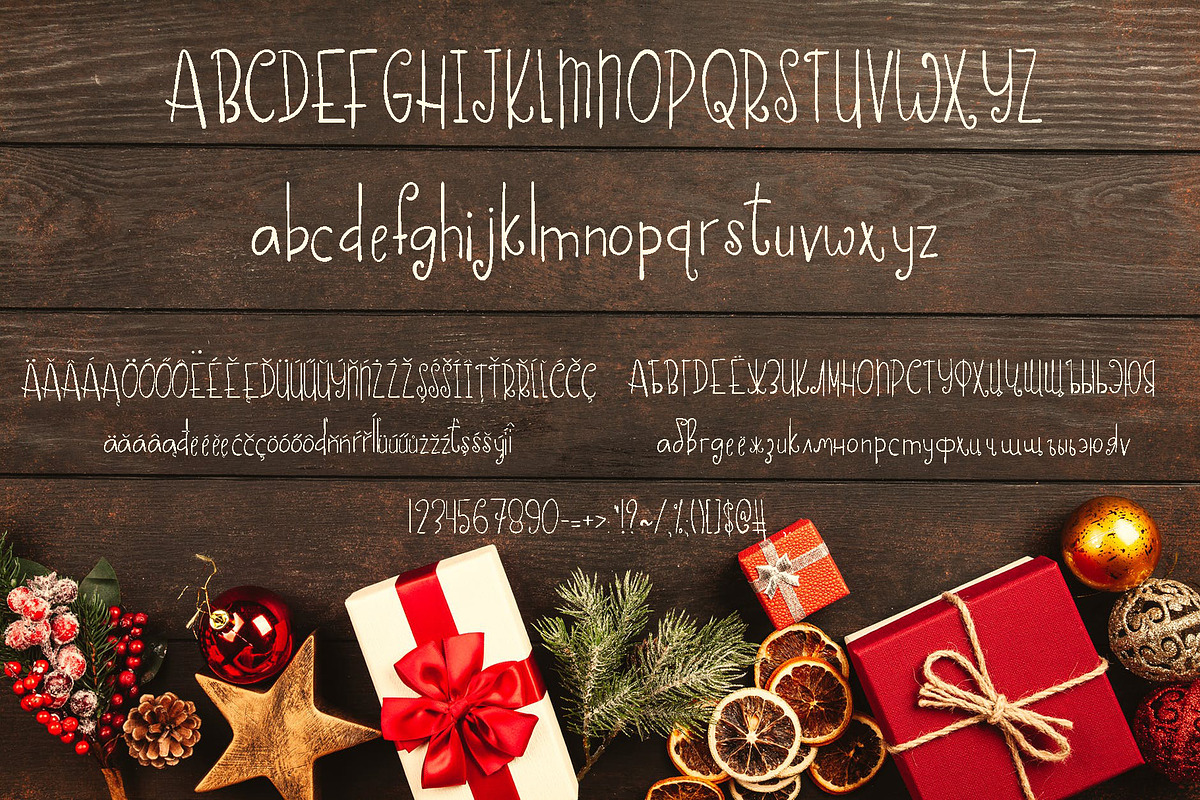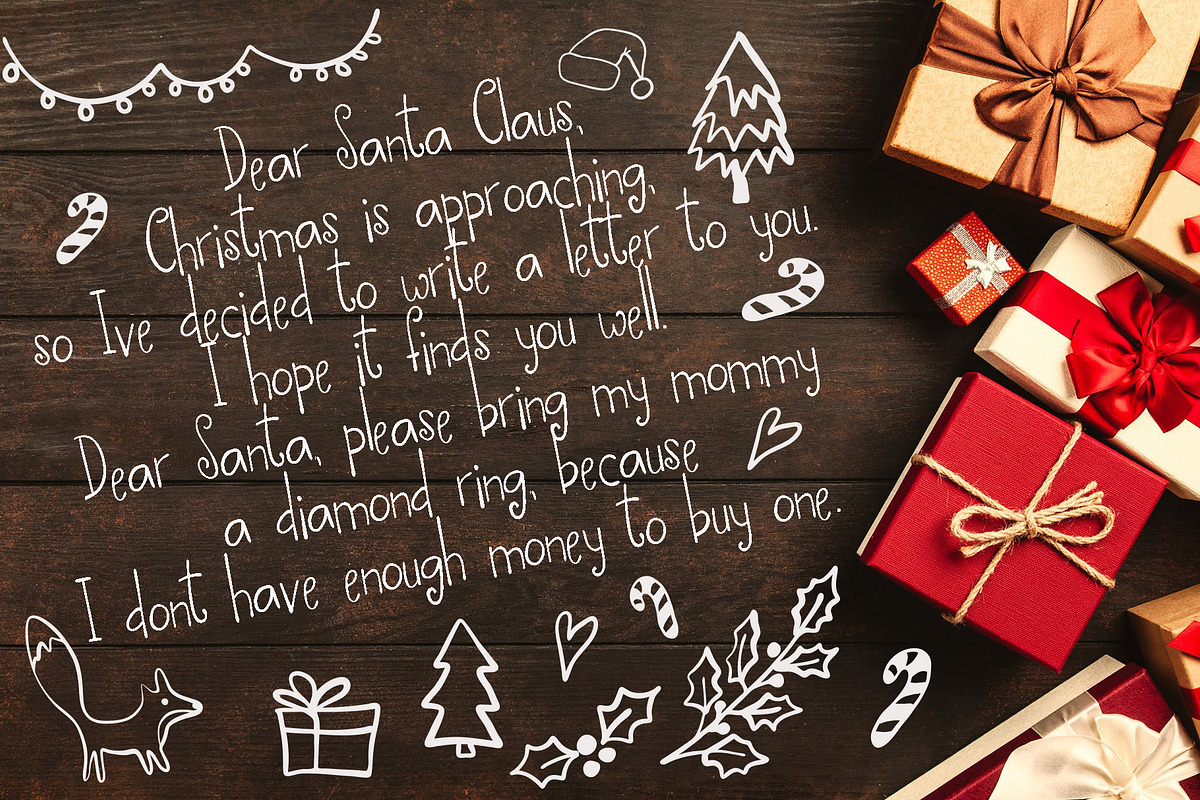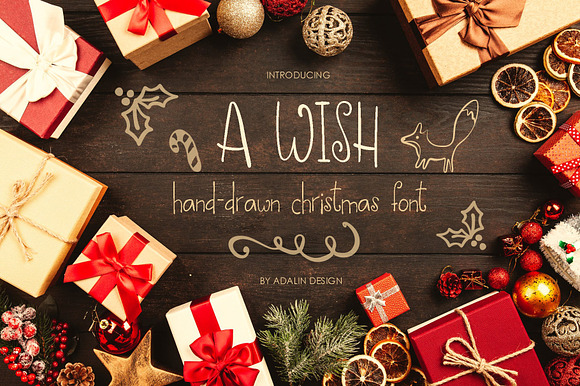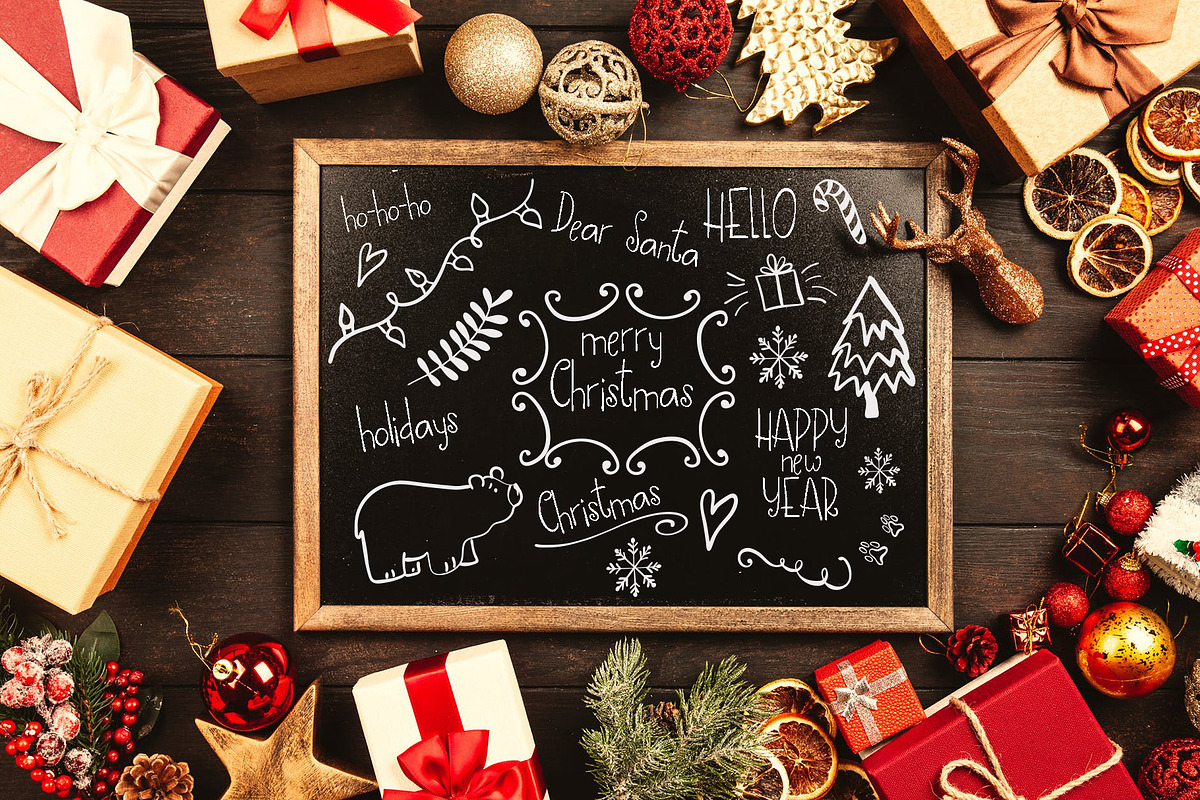
A WISH- Christmas font
Here comes my new very merry Christmas font– A WISH! This font is fully hand-drawn that makes it look cute and cozy!
Add some Christmas and celebration mood to your artworks with A WISH!
This font will be perfect for modern products design, logos, t-shirt prints, postcards and so on.
Also you can use the letters as separate objects to make cool combinations for cards and photos decor. Look through the previews to see the examples!
A WISH comes with basic and lowercase characters, numbers, signs and punctuation.Ligatures are also included to bring true authenticity to your design. It has multilingual support with accented characters for international users.
Which international languages does AWISH support? A WISH has accented and special characters that support the following languages : Basque, Bosnian, Catalan Cornish, Croatian, Czech, Danish, Dutch, Embu, English, Esperanto, Estonian, Faroese, Filipino, Finnish, French, Galician, German, Hungarian, Icelandic, Indonesian, Irish, Italian, Malay, Maltese, Manx, Maori, Meru, Morisyen, North Ndebele, Norwegian Bokmål, Norwegian Nynorsk, Nyankole, Oromo, Polish, Portuguese, Romansh, Serbian (Latin), Slovak, Slovenian, Spanish,Swedish, Swiss German.